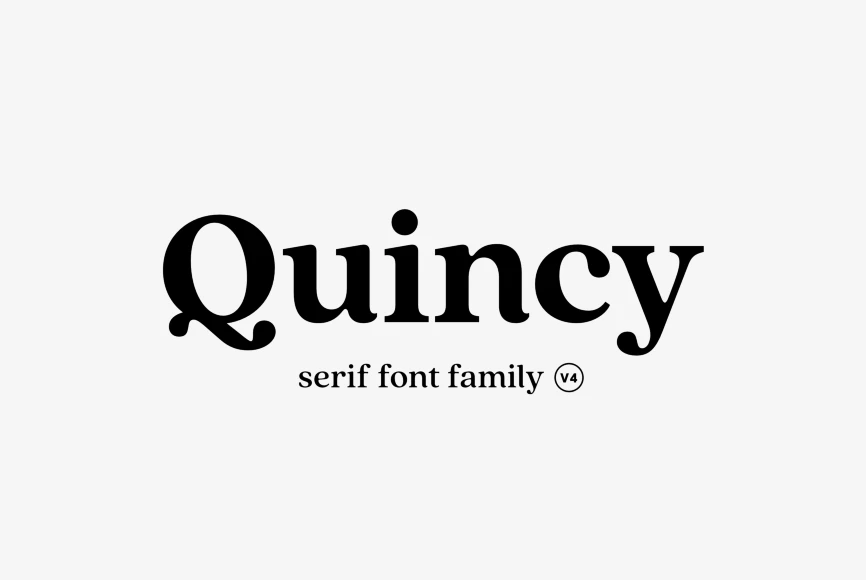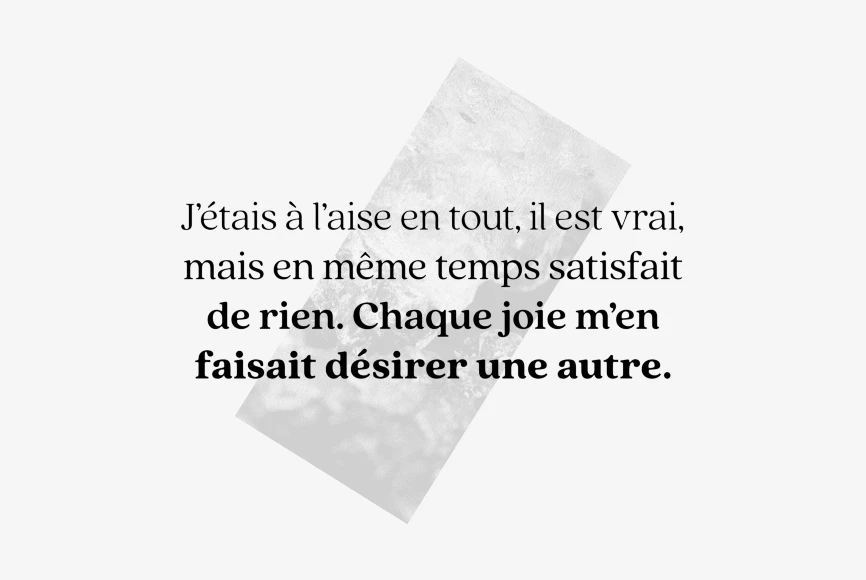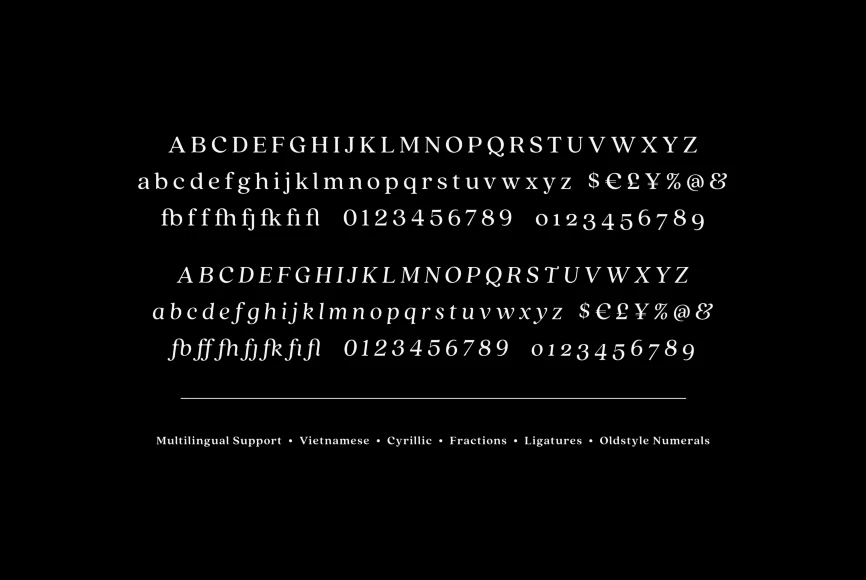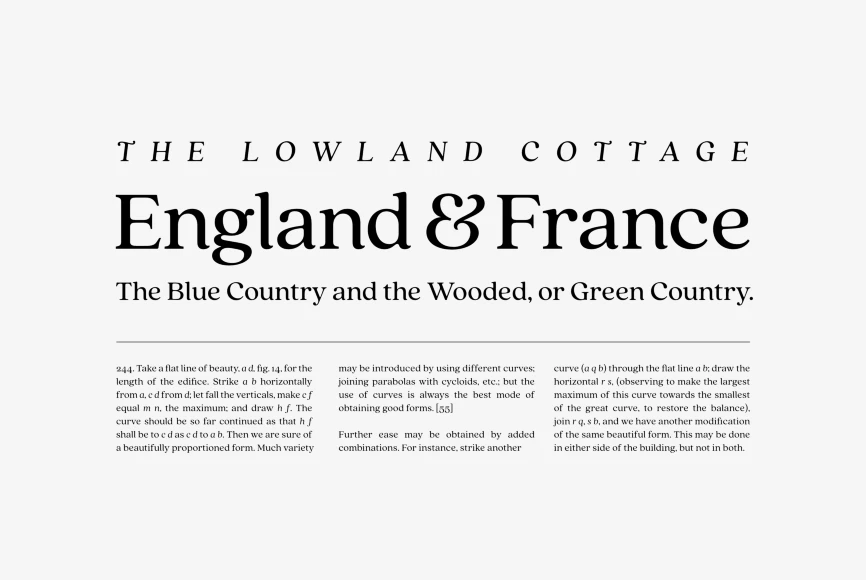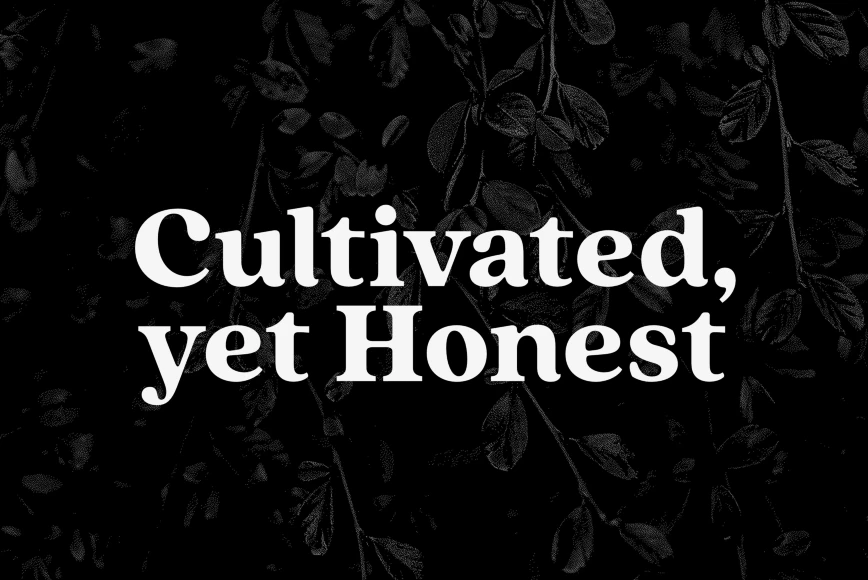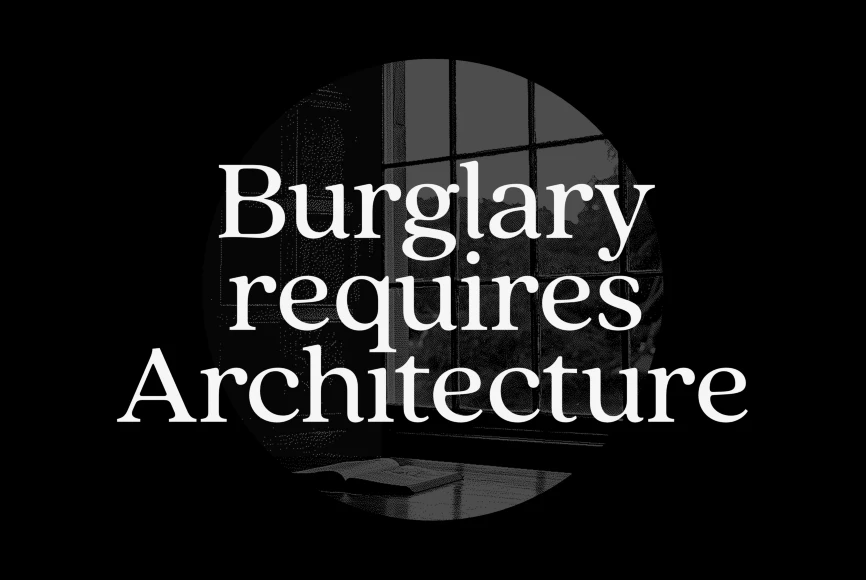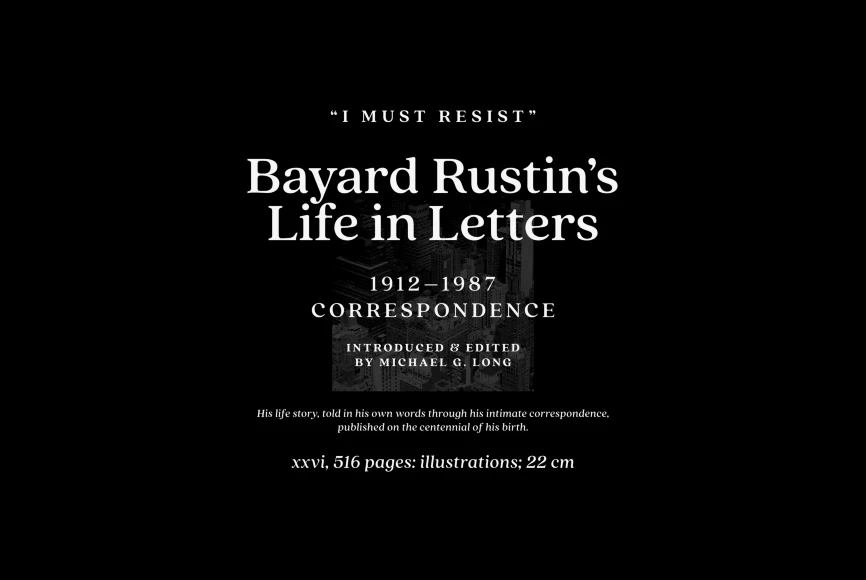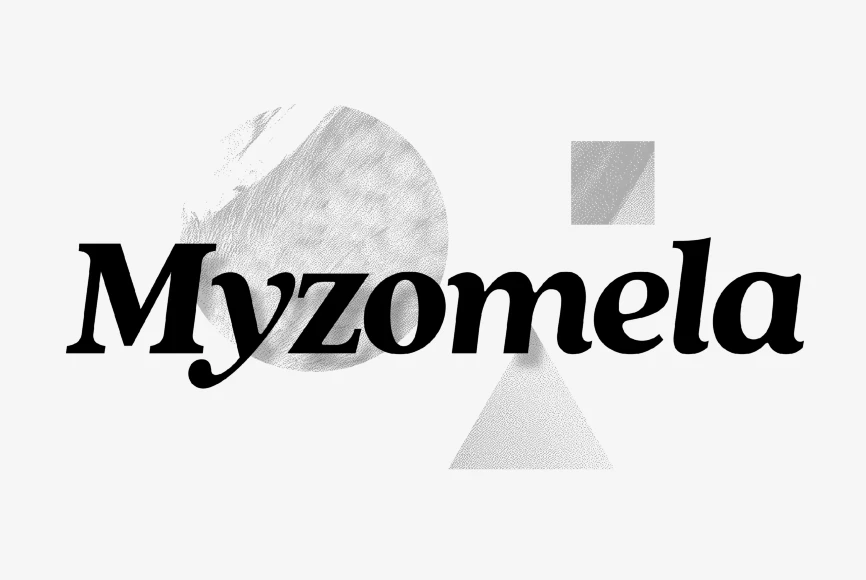
Quincy
The warm letterforms and medium contrast of Quincy CF give any text a smooth, flowing motion. Small variations and human touches add charm, with Quincy’s boldest weights especially strong as large and medium display type.